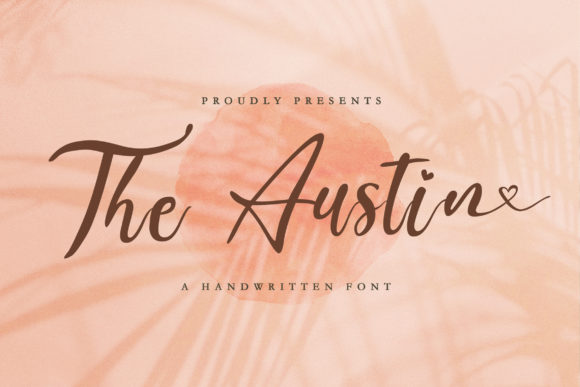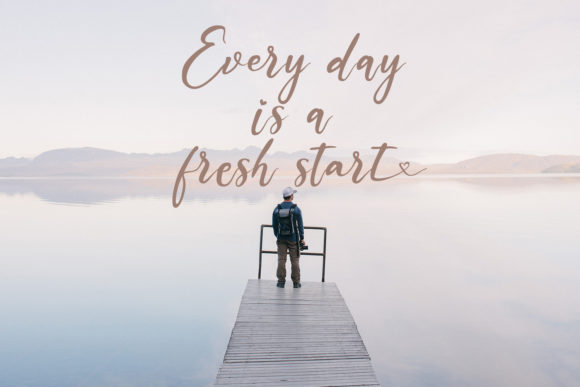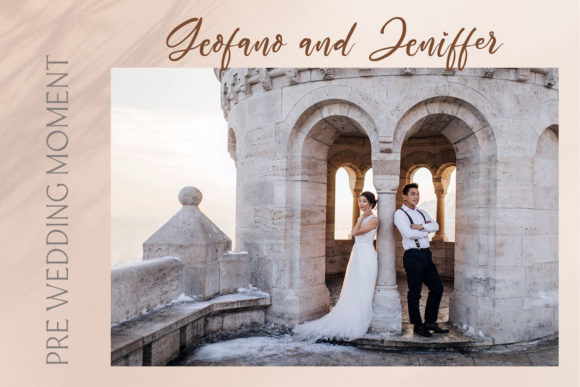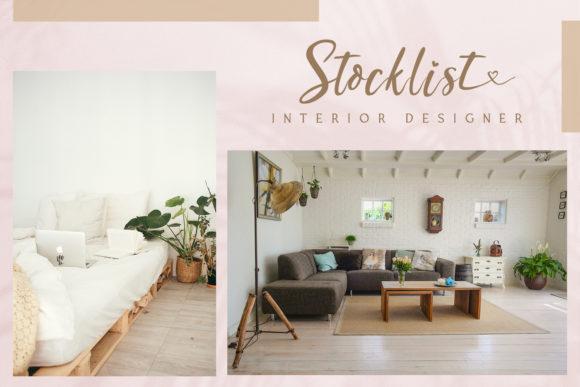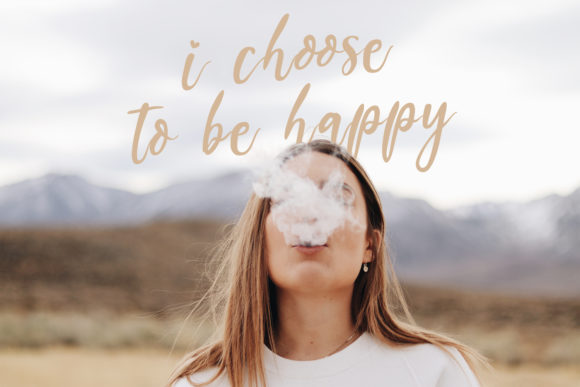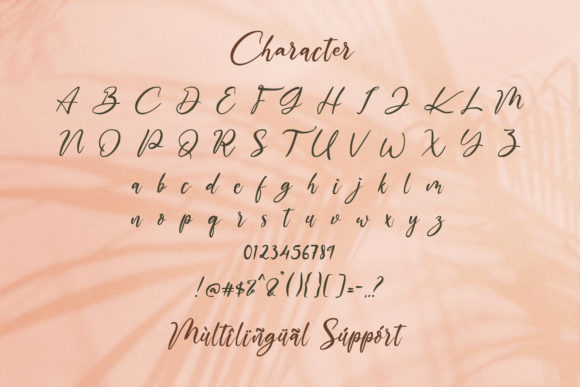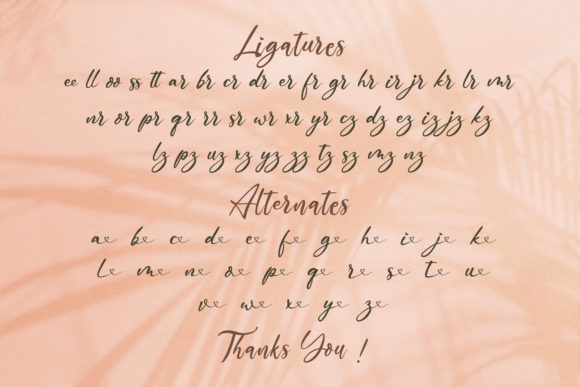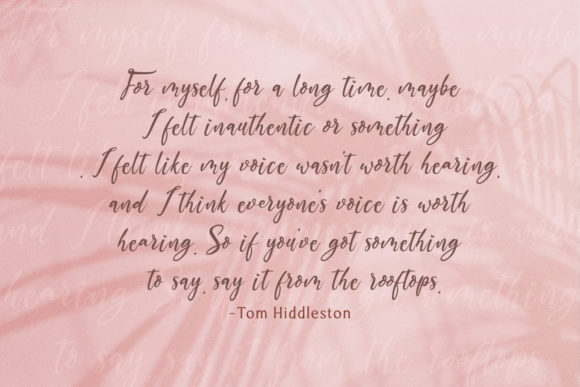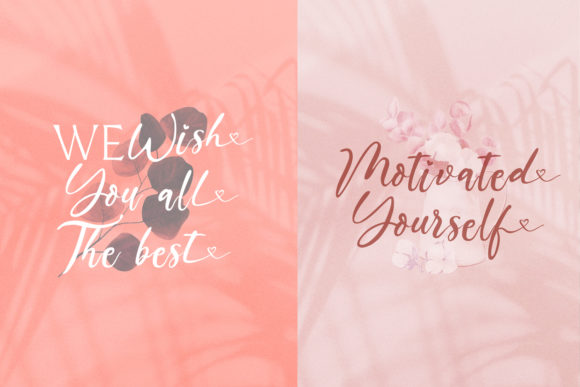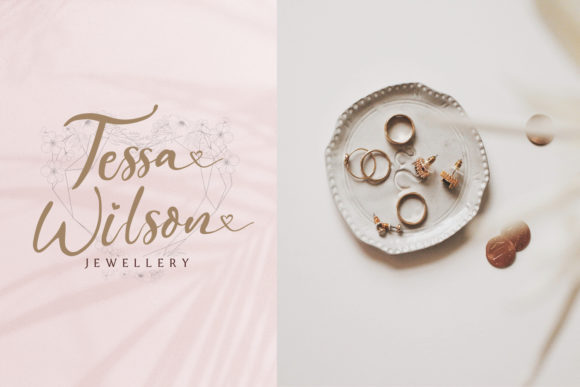
The Austin Font
About The Austin Font
The Austin feels equally charming and elegant. Whether you’re looking for fonts for Instagram or calligraphy scripts for DIY projects, this handwritten font will turn any creative idea into a true piece of art!